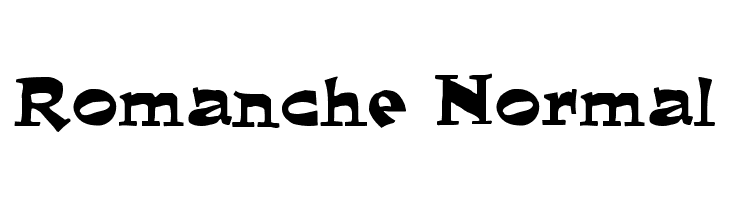
A bold, handcrafted font with a unique and artistic style.
( Fonts by Arkandis Digital Foundry )
A bold, classic serif font with strong strokes and elegant proportions.
( Fonts by Arkandis Digital Foundry )
A bold, italic serif font with a classic and elegant style.
( Fonts by Arkandis Digital Foundry )
An elegant italic serif font with classic, sophisticated styling.
( Fonts by Arkandis Digital Foundry )
A classic serif typeface with elegant strokes and moderate contrast, ideal for formal uses.
( Fonts by Arkandis Digital Foundry )
An elegant, italic script font with flowing, cursive characters.
( Fonts by Arkandis Digital Foundry )
A bold, classic serif font with moderate contrast and refined serifs.
( Fonts by Arkandis Digital Foundry )
A bold, italic serif font with a classic and elegant style.
( Fonts by Arkandis Digital Foundry )
An elegant serif font with a classic italic style and smooth, flowing lines.
( Fonts by Arkandis Digital Foundry )
A classic serif typeface with elegant, refined strokes and balanced proportions.